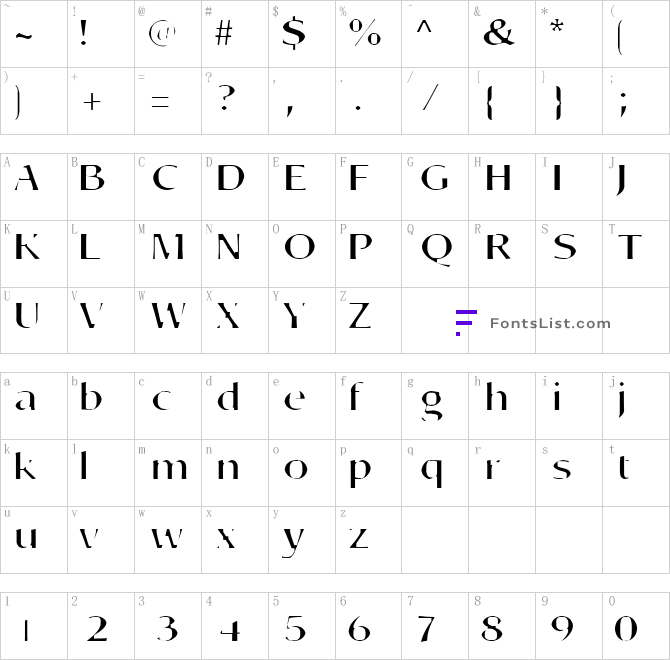
- Font Name:Aortal
- Full Name:Aortal Hard
Aortal-Hard.ttf is a very beautiful artistic font, Aortal-Hard.ttf is widely used in the design and printing of various books and pictures,Aortal-Hard.ttf has a strong visual impact,Aortal-Hard.ttf is a commonly used font in newspapers, magazines and books, and is used in posters, e-commerce Poster design, store design, logo design, font design and other fields.Aortal-Hard.